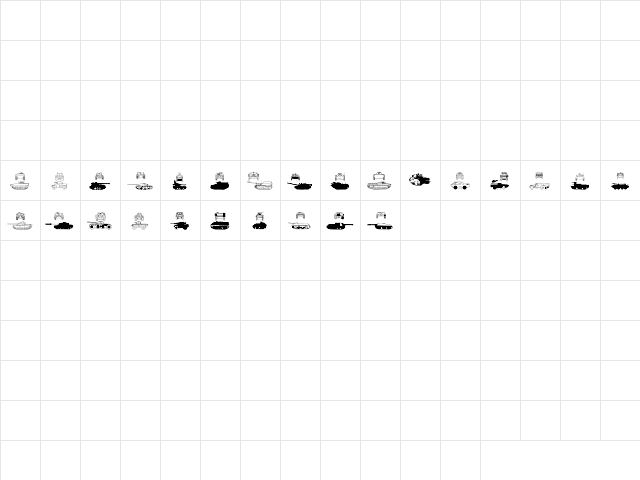
AFV1 Regular Font Preview
AFV1 Regular
Design Context for AFV1 Typeface
AFV1 is a composed and adaptable typeface that performs quietly and consistently across a wide range of design contexts.